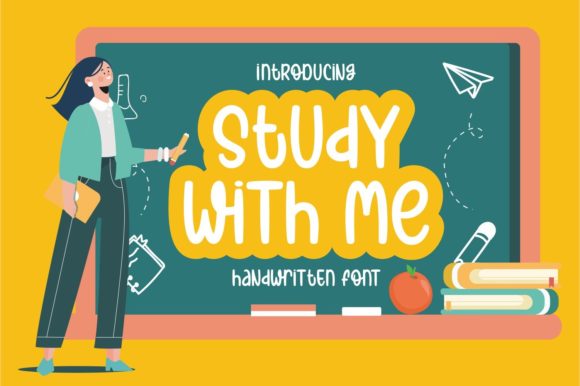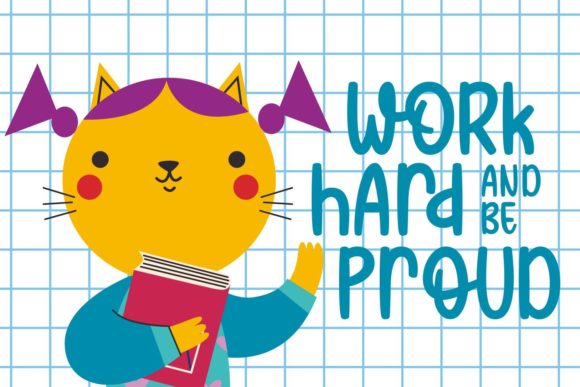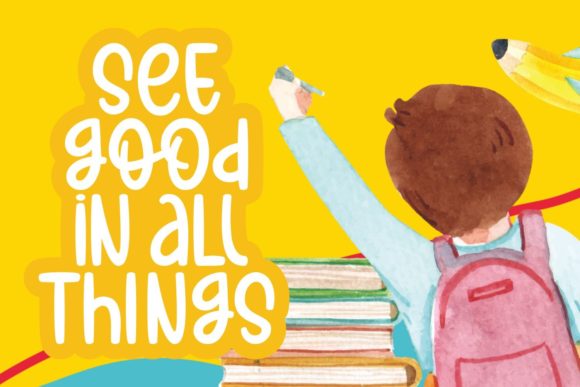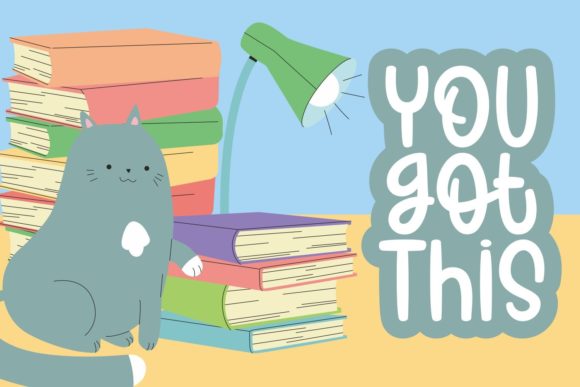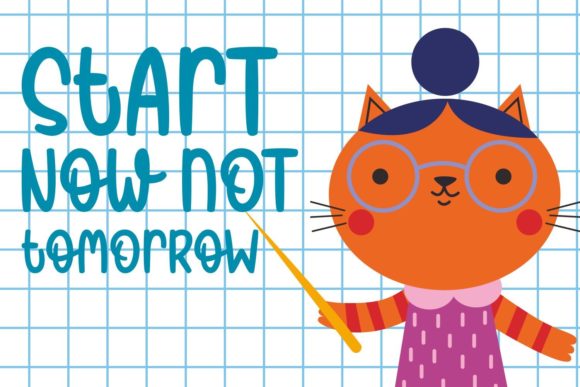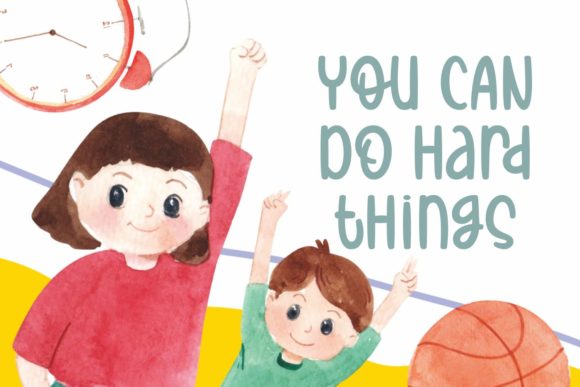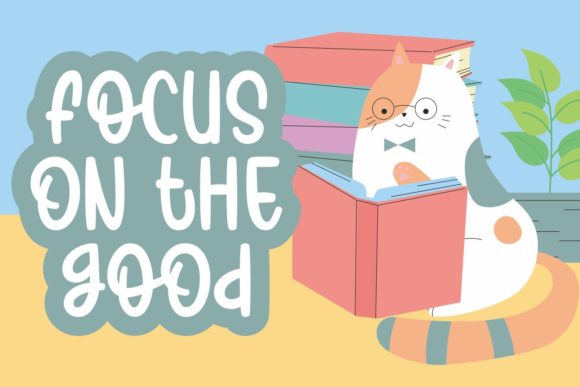
Study with Me Font
Study With Me is a playful and cheerful handwritten font. With lovely characters that seem to dance along the baseline, this typeface is the perfect choice for any creation ranging from labels and product packaging to business cards and other exquisite projects!